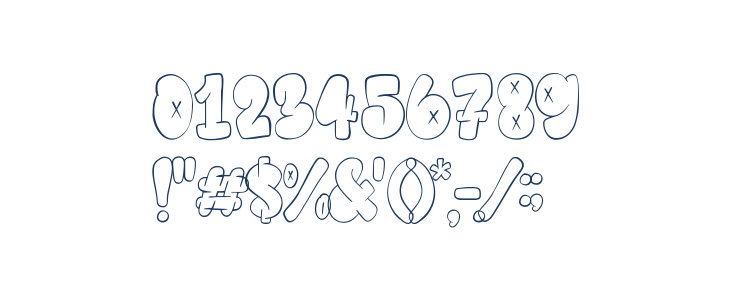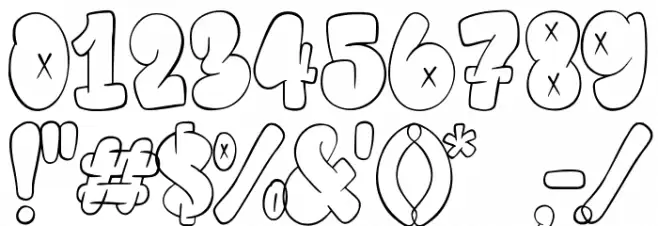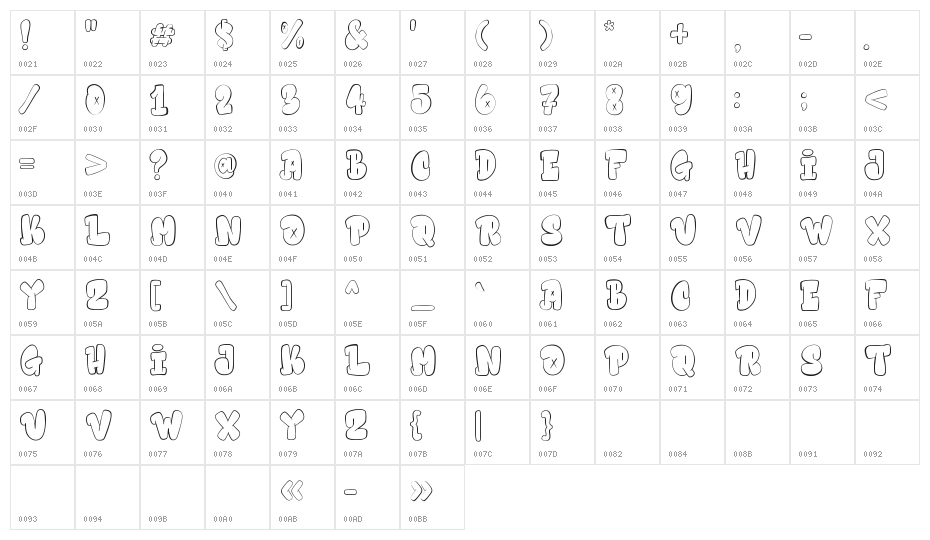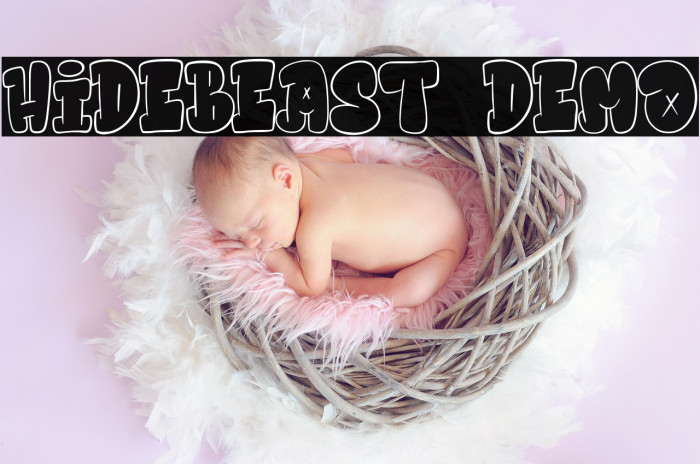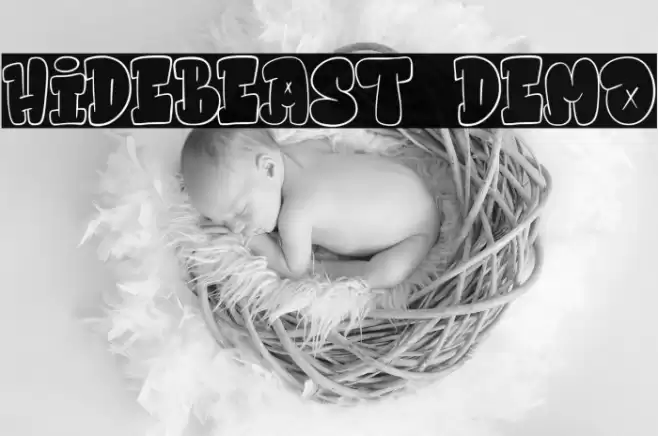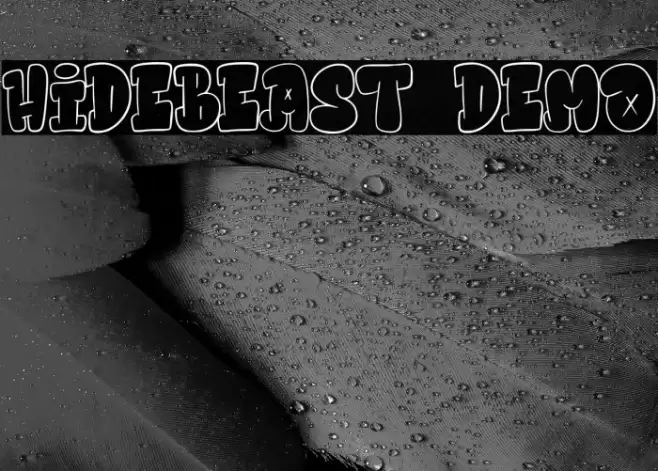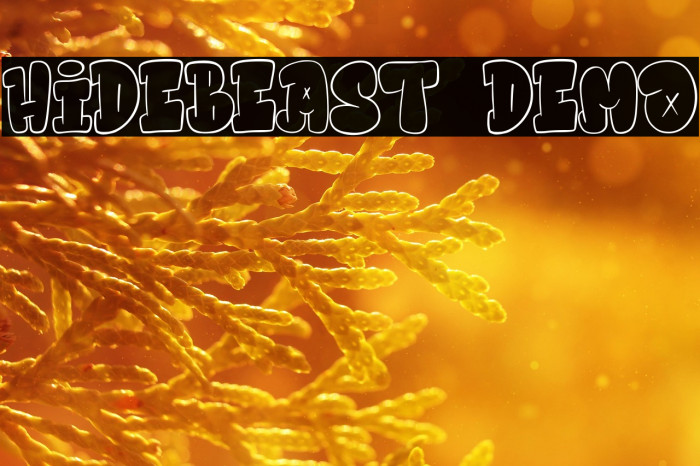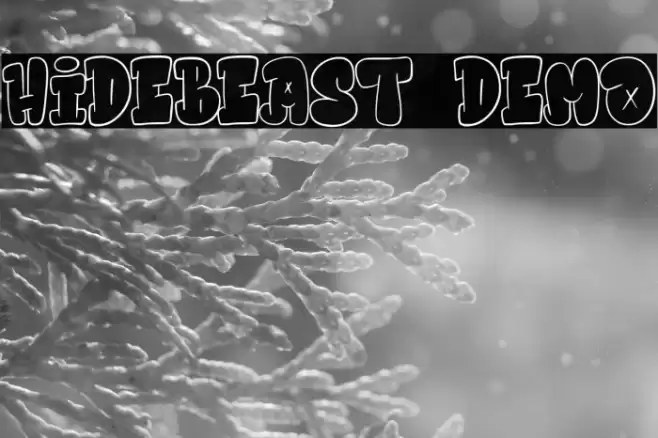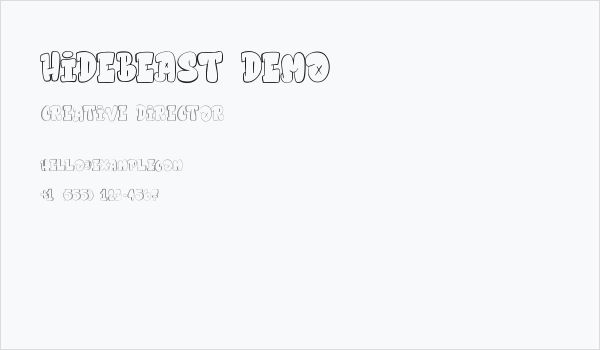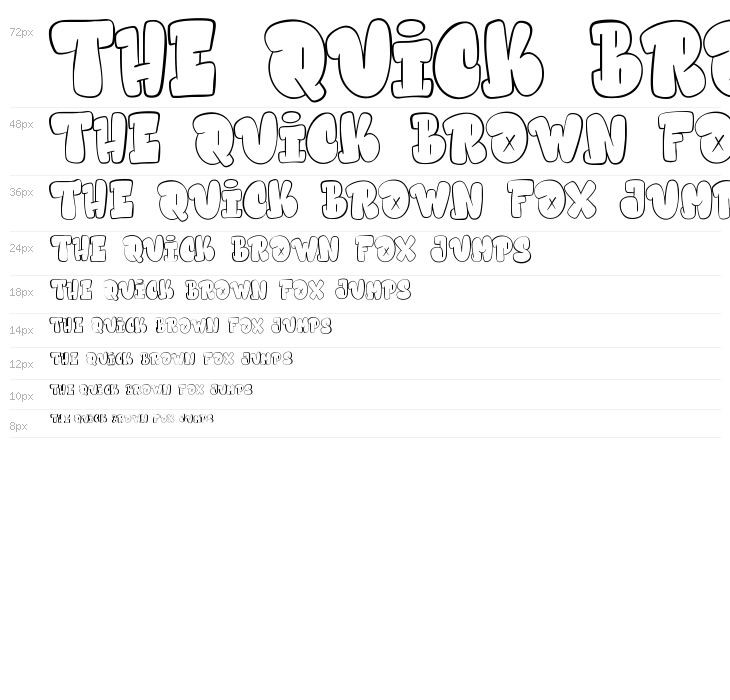
Hidebeast Demo Font
Hidebeast Demo Description
This playful and bold font features a unique bubble-like design with a hand-drawn aesthetic. Each character is outlined, giving it a cartoonish and whimsical feel. The letters are rounded and thick, with a consistent stroke width that adds to its bold appearance. The font includes both uppercase and lowercase letters, numbers, and a variety of special characters, all maintaining the same playful style. The overall look is casual and fun, making it ideal for projects that require a lighthearted and informal touch.
| Proposed Projects | Ideal for children's books, comic strips, playful branding, and party invitations. |